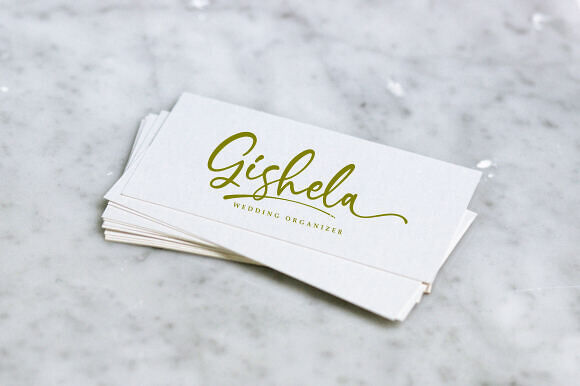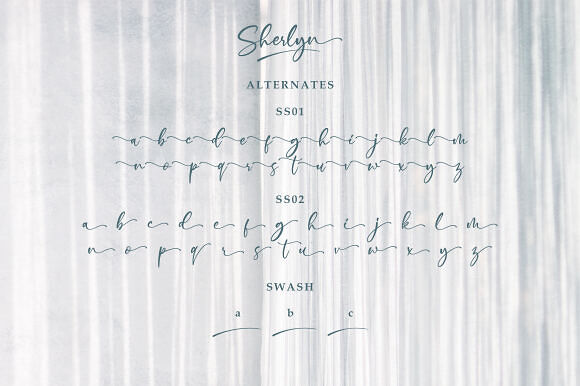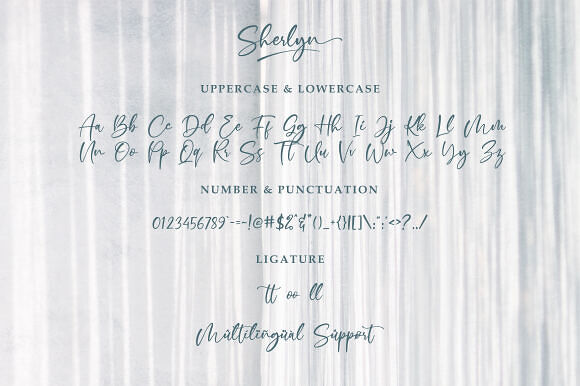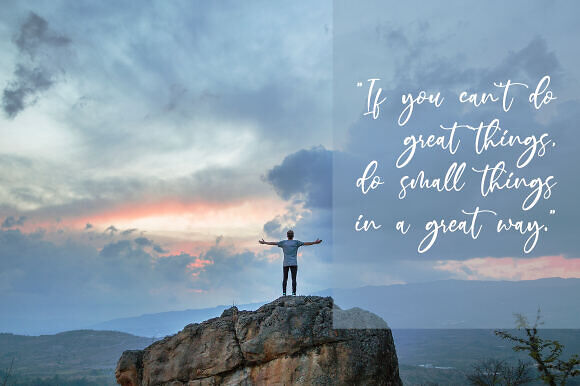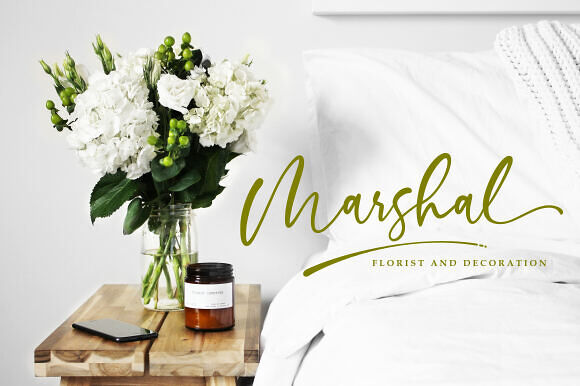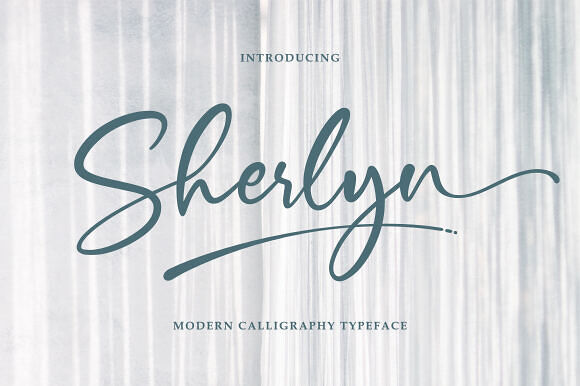
Sherlyn Font
Sherlyn is an elegant cursive script font designed by R Studio. With its flowing, handwritten style, it is perfectly suited for branding, logos, headlines, fashion labels, wedding invitations, and sophisticated stationery projects. This typeface features 240 glyphs, offering a polished look for creative designs.